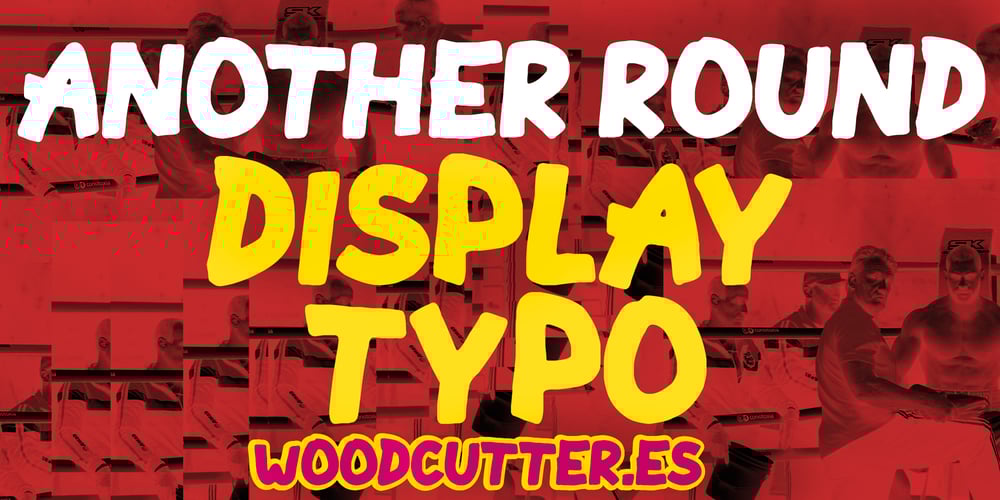
Another Round Font Family was designed by Jordi Manero and published by Woodcutter. Another Round contains 1 styles and family package options. “Another Round font features uppercase letters with a handcrafted appearance, characterized by bold and assertive strokes. With its thick and substantial design, this font exudes a sense of confidence and impact. Ideal for projects seeking a handmade, artisanal aesthetic, ‘Another Round’ adds a touch of authenticity and personality to your designs. Perfect for headlines, posters, and branding, this font captures the essence of craftsmanship and individuality, infusing your projects with a distinct and memorable style.”